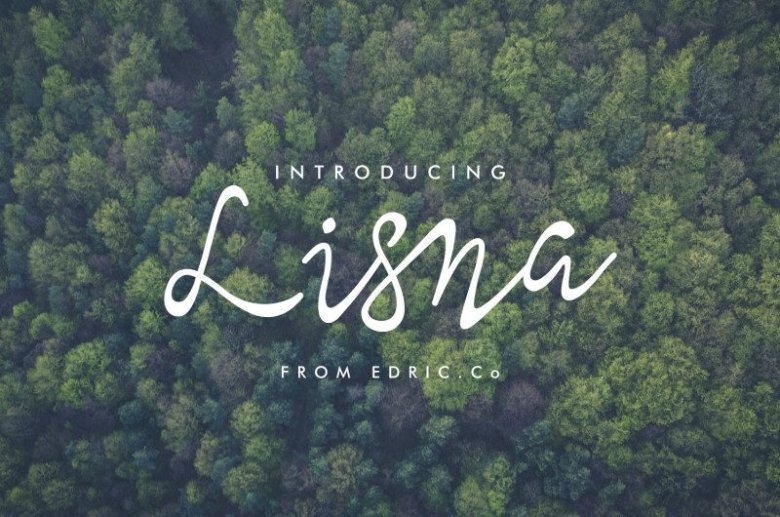
Lisna Script Font
It’s great to be back! This is our newest font called “LISNA”. This font was made by hand by our only female designer on our typeface team. This come with 2 styles : regular and bold.
It has a special style naturally like a real writing. With a unique width.,this font will be great for many projects : from Headline resume, watermark, flyer, invitation, Product tagline like cosmetic lipstick, makeup artist etc.